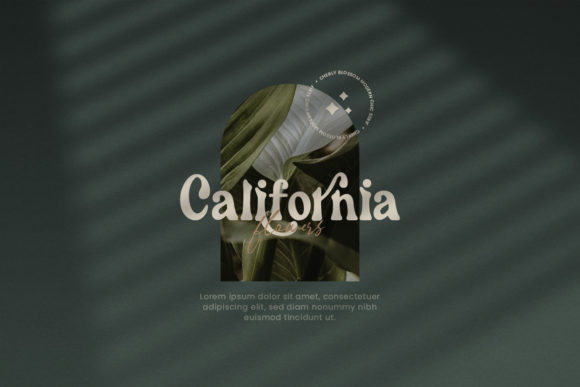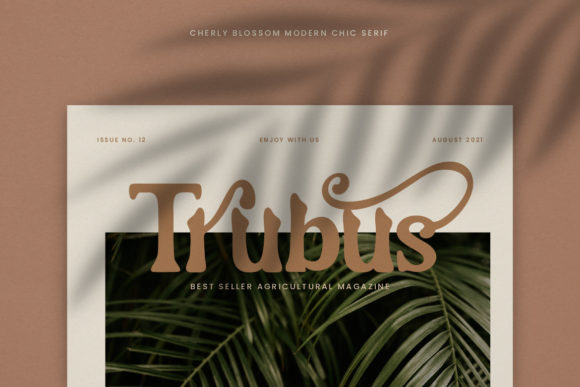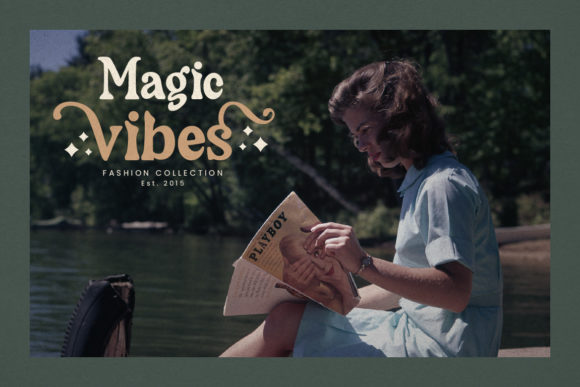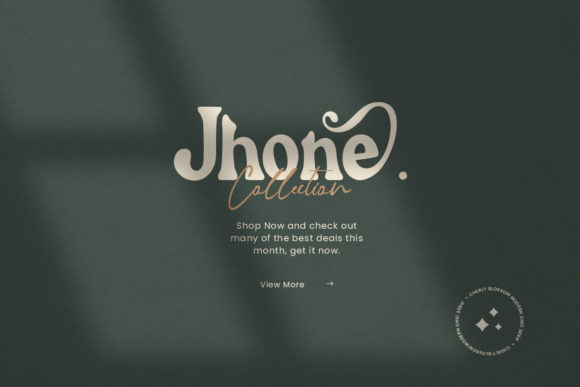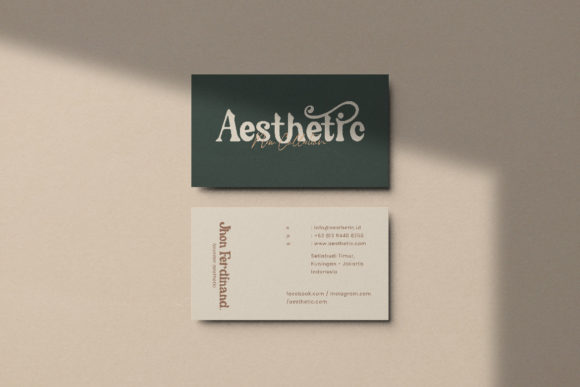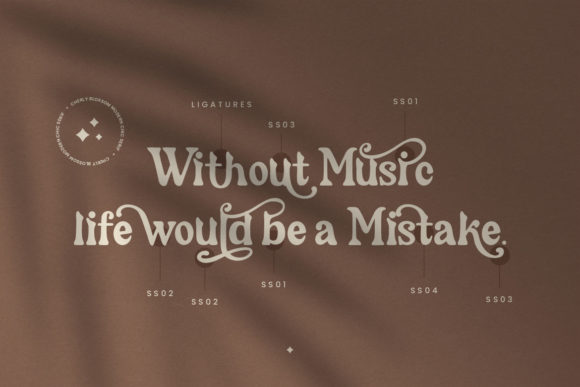
Introduction to Cherly Blossom Font
Cherly Blossom is a vintage, chic and bold serif font.
Whatever the topic, this font will be a wonderful asset to your font library, as it has the potential to enhance any creation This font is PUA encoded which means you can access all glyphs and swashes with ease.